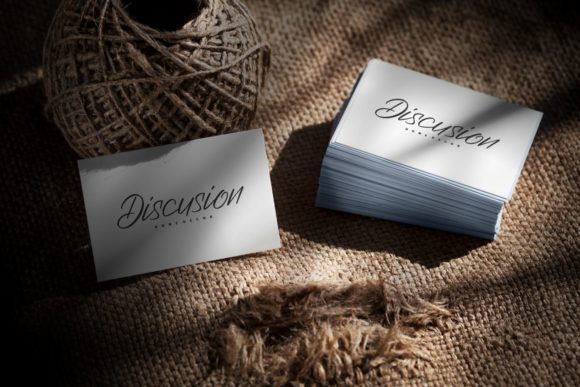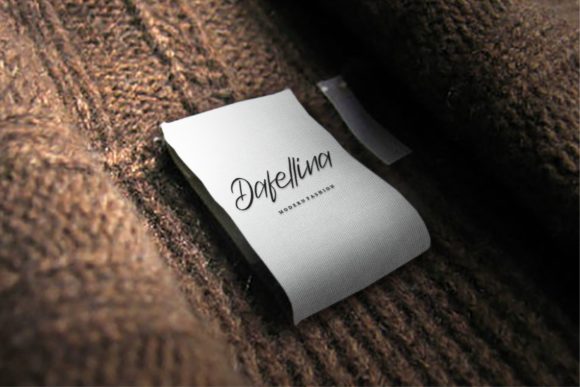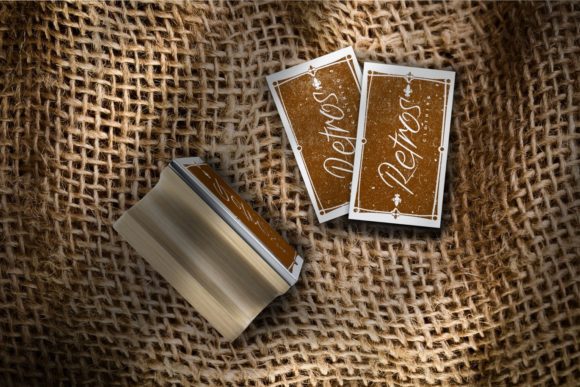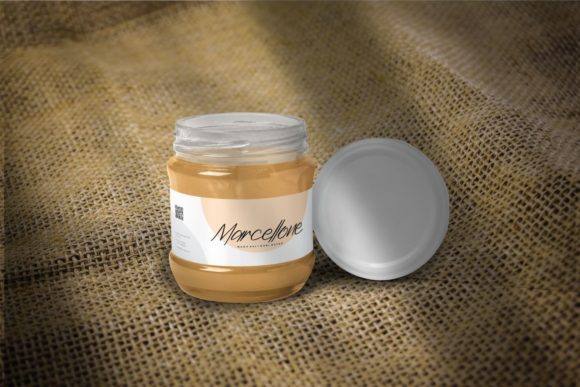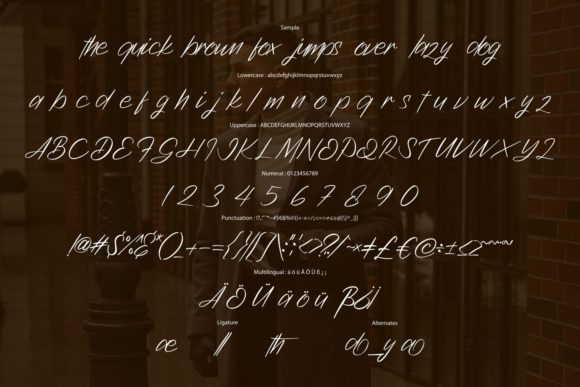
Unlock the Magic of Handwritten Charm with the Bathista Font
Have you ever found yourself stuck in a creative rut, staring blankly at a blank page, waiting for inspiration to strike? I know I have. It’s moments like those that I turn to a trusty font that never fails to add a touch of elegance and whimsy to my designs. For me, that font is the Bathista Font – a delicate, flowing handwritten script that brings even the most mundane ideas to life.
The Bathista Font is a versatile tool for designers, offering beautiful and well-balanced characters that complement a wide range of designs. Whether you’re crafting a wedding invitation, a birthday card, or a marketing brochure, this font is sure to add a personal touch that sets your work apart from the crowd.
With its charming and flowing lines, the Bathista Font is a valuable addition to any designer’s toolkit. It’s a font that invites creativity and experimentation, and is sure to inspire you to try new things and push the boundaries of your design skills.
Bathista Font Key Features
- Unique Characteristics: Bathista Font features a unique blend of modern and vintage elements, with intricate details and ornate flourishes that set it apart from other fonts.
- Font Style: The font is available in a single style, but it can be used in a variety of applications, from formal invitations to creative artwork, due to its versatility and expressiveness.
Bathista Font Review
I’ve had the chance to work with the Bathista font and I must say it’s a unique and stylish choice for any design project. ✨ Here are some of the things that work well:
- Uniqueness: Bathista is not your average font, it’s a bold and quirky choice that can add character to any design.
- Legibility: Despite its bold style, Bathista is surprisingly easy to read, making it a great choice for body text or headlines.
- Expressiveness: The font has a lot of personality, which makes it perfect for projects that need a little extra flair.
However, as with any font, there are some limitations to consider:
- Readability at small sizes: While Bathista is legible at larger sizes, it can become a bit fuzzy at smaller sizes, which may be a concern for designers who need to use it in tight spaces.
- Limited Unicode support: Bathista may not support all Unicode characters, which could be a problem for designers who need to use it for international text.
- Not suitable for all projects: Bathista is a bold and eye-catching font, which may not be the best choice for projects that require a more subtle or formal tone.
Overall, I think Bathista is a great choice for designers who want to add some personality to their projects. While it has some limitations, it’s a unique and stylish font that can really make a design stand out.
Bathista Font Practical Application Guide
Getting the Most Out of Bathista Font
For optimal results, use Bathista Font in conjunction with high-quality graphics and images. Experiment with different font sizes, styles, and colors to create visually appealing designs. You can also use Bathista Font in combination with other fonts to create a unique and interesting typography.
Bathista Font is ideal for creative and artistic projects, such as posters, flyers, and brochures. It is also suitable for web design, particularly for headings and titles. Additionally, Bathista Font can be used in print design, such as business cards and letterheads.